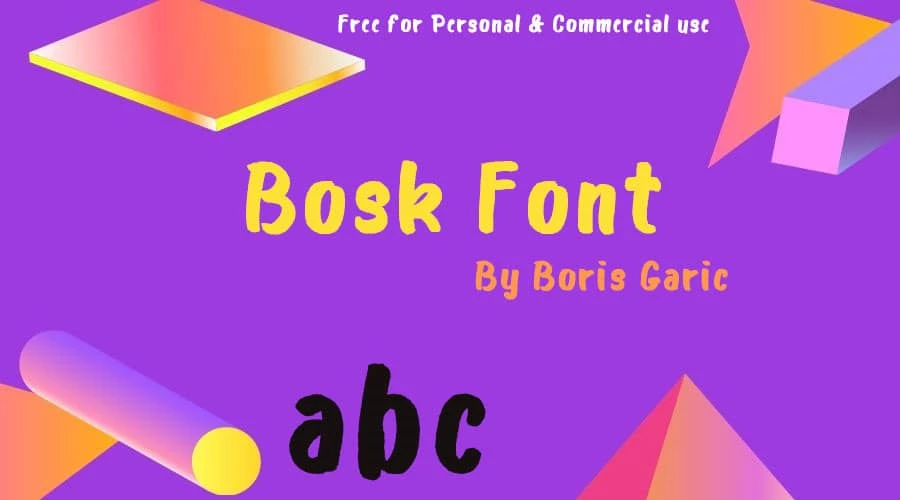
If you are looking for amazing handmade brush font then, Bosk Font is the ideal choice for you. Bosk is a handwritten brush typeface designed by Boris Garic. With over 400 characters, Bosk font is an eye-catchy and user-friendly typeface. It gives your design a vintage look. If you want to check out Boris Garic other fonts then, Click Here.
If you want to make your design kind of vintage and grunge, then Bosk font is the best choice for you. It is suitable for everything vintage and overall that handmade feel. Bosk Font is a great option for logos, posters, and T-shirt design due to its nice legibility.
Being a handwriting font, Bosk has an elegant look also. You can use this font in all kinds of documents as a header font. Besides, you can use this on your website and presentation.
Style | Handwritten, Brush |
Ans: Bosk is a handwritten brush typeface designed by Boris Garic.